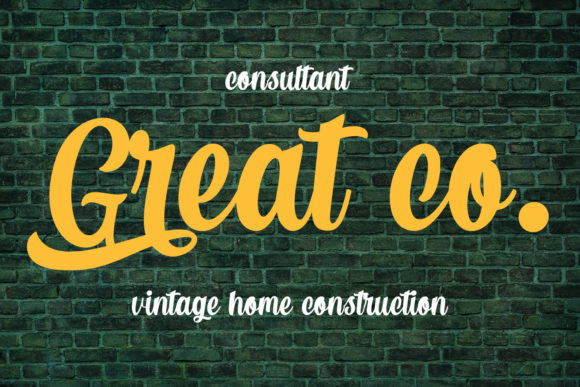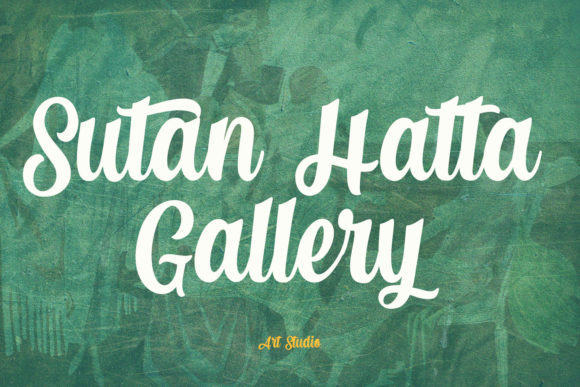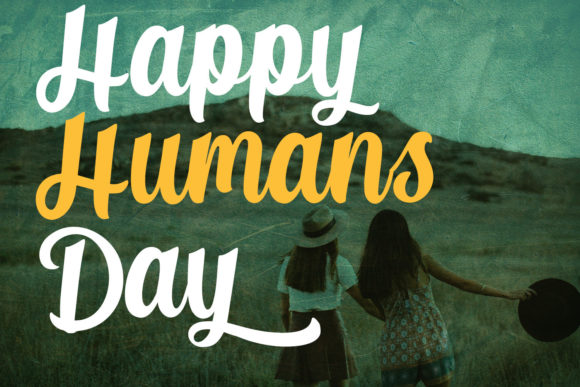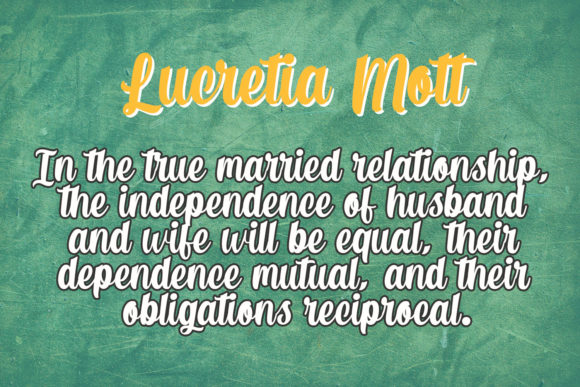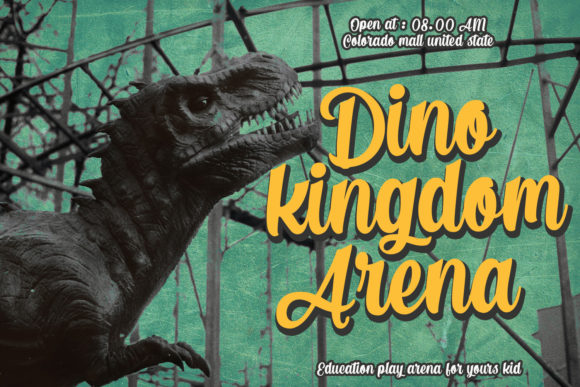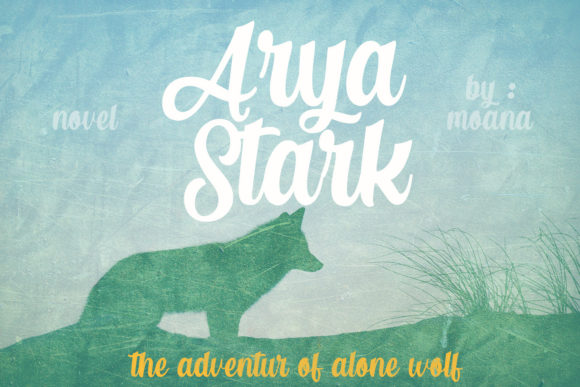
Faleringo Font: Elevate Your Designs with Elegance and Class
In the world of typography, a well-crafted font can make all the difference in elevating your design projects from ordinary to extraordinary. Faleringo, a beautifully balanced and subtle handwritten font, is designed to add a touch of elegance and class to any design. With its carefully crafted letters and attention to detail, Faleringo is the perfect choice for designers and crafters looking to make a lasting impression.
The Story Behind Faleringo
Faleringo is more than just a font – it’s a reflection of the art of handwriting. Each letter is meticulously crafted to create a sense of fluidity and movement, making it perfect for a wide range of design applications. Whether you’re working on a branding project, creating a stylish invitation, or designing a beautiful journal, Faleringo is the ideal choice.
Key Features of Faleringo
- Well-balanced and subtle design: Faleringo’s elegant design makes it perfect for use in a variety of contexts, from formal to informal.
- Handwritten with care: Each letter is carefully crafted to create a sense of fluidity and movement.
- Elegant and classy: Faleringo adds a touch of sophistication to any design project.
- Versatile: Suitable for a wide range of design applications, including branding, invitations, journals, and more.
Why Choose Faleringo?
With so many fonts available, why choose Faleringo? Here are just a few reasons why designers and crafters are falling in love with this beautiful font:
- Unique and distinctive: Faleringo’s elegant design sets it apart from more traditional fonts.
- Easy to read: Despite its elegant design, Faleringo is surprisingly easy to read, making it perfect for body text.
- Highly versatile: Faleringo can be used in a wide range of design applications, from digital to print.
Using Faleringo in Your Design Projects
So, how can you use Faleringo in your design projects? Here are a few ideas to get you started:
- Branding and logos: Use Faleringo to create a unique and memorable brand identity.
- Invitations and stationery: Add a touch of elegance to your invitations, business cards, and other stationery.
- Journals and planners: Use Faleringo to create beautiful and functional journals and planners.
- Digital design: Faleringo can be used in digital design projects, such as website headers, social media graphics, and more.
Tips for Pairing Faleringo with Other Fonts
When pairing Faleringo with other fonts, here are a few tips to keep in mind:
- Contrast with bold fonts: Pair Faleringo with bold, sans-serif fonts to create a striking contrast.
- Match with script fonts: Pair Faleringo with other script fonts to create a cohesive and elegant look.
- Use with neutral fonts: Pair Faleringo with neutral fonts, such as Helvetica or Arial, to create a clean and sophisticated look.
Faleringo is a beautifully crafted handwritten font that is perfect for designers and crafters looking to add a touch of elegance and class to their design projects. With its well-balanced and subtle design, Faleringo is highly versatile and can be used in a wide range of applications. Whether you’re working on a branding project, creating a stylish invitation, or designing a beautiful journal, Faleringo is the ideal choice.